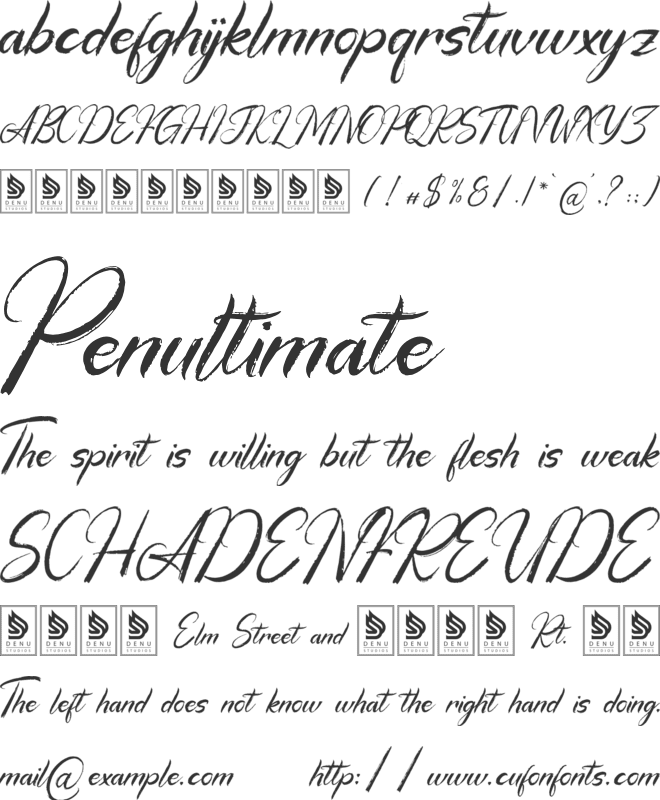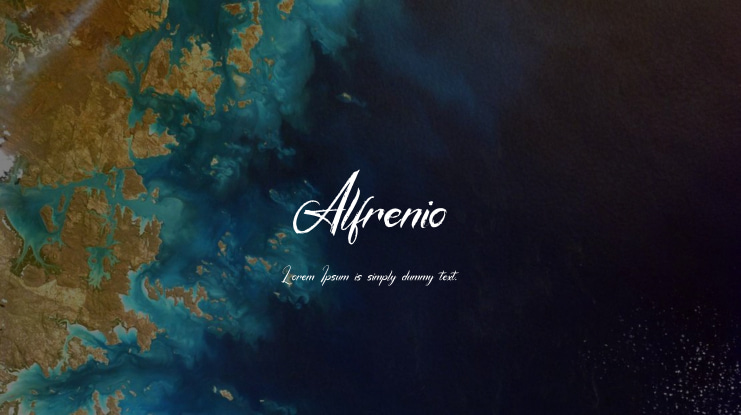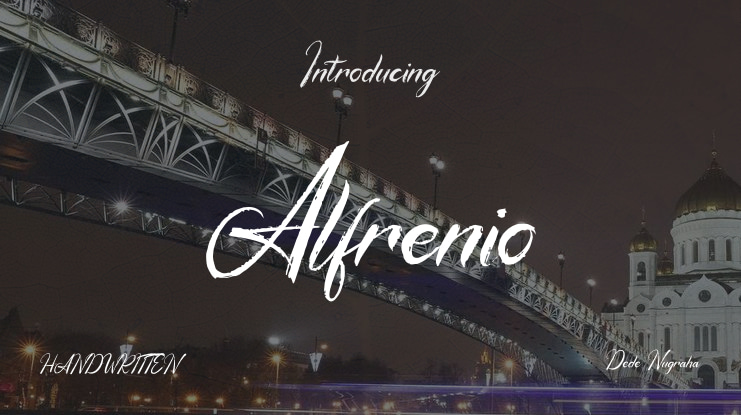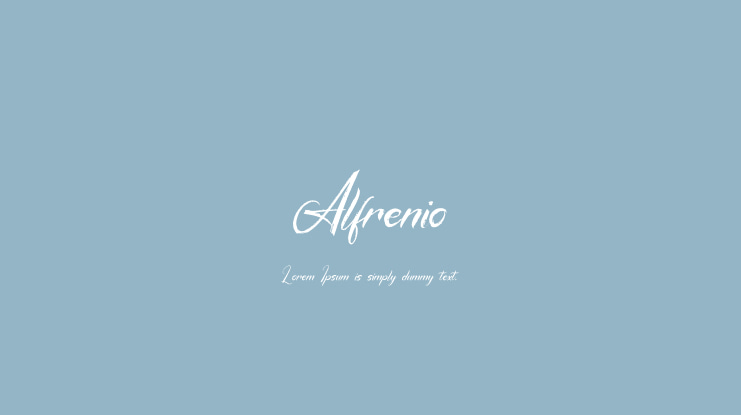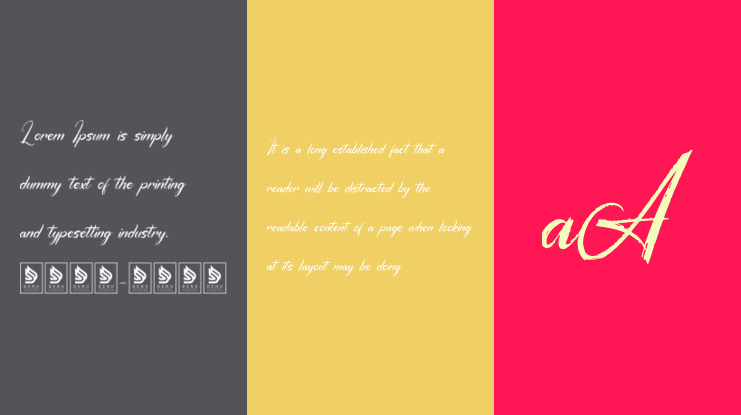
Alfrenio | Handwritten Brush Script is perfect for a variety of projects, including:
- Logos - Branding projects - Homeware designs - Product packaging - Mugs - Quotes - Posters - Shopping bags - T-shirts - Book covers - Name cards - Invitation cards - Greeting cards - Labels - Photography watermarks - Special events - And all other lovely projects that require a Handwritten Brush Script aesthetic.